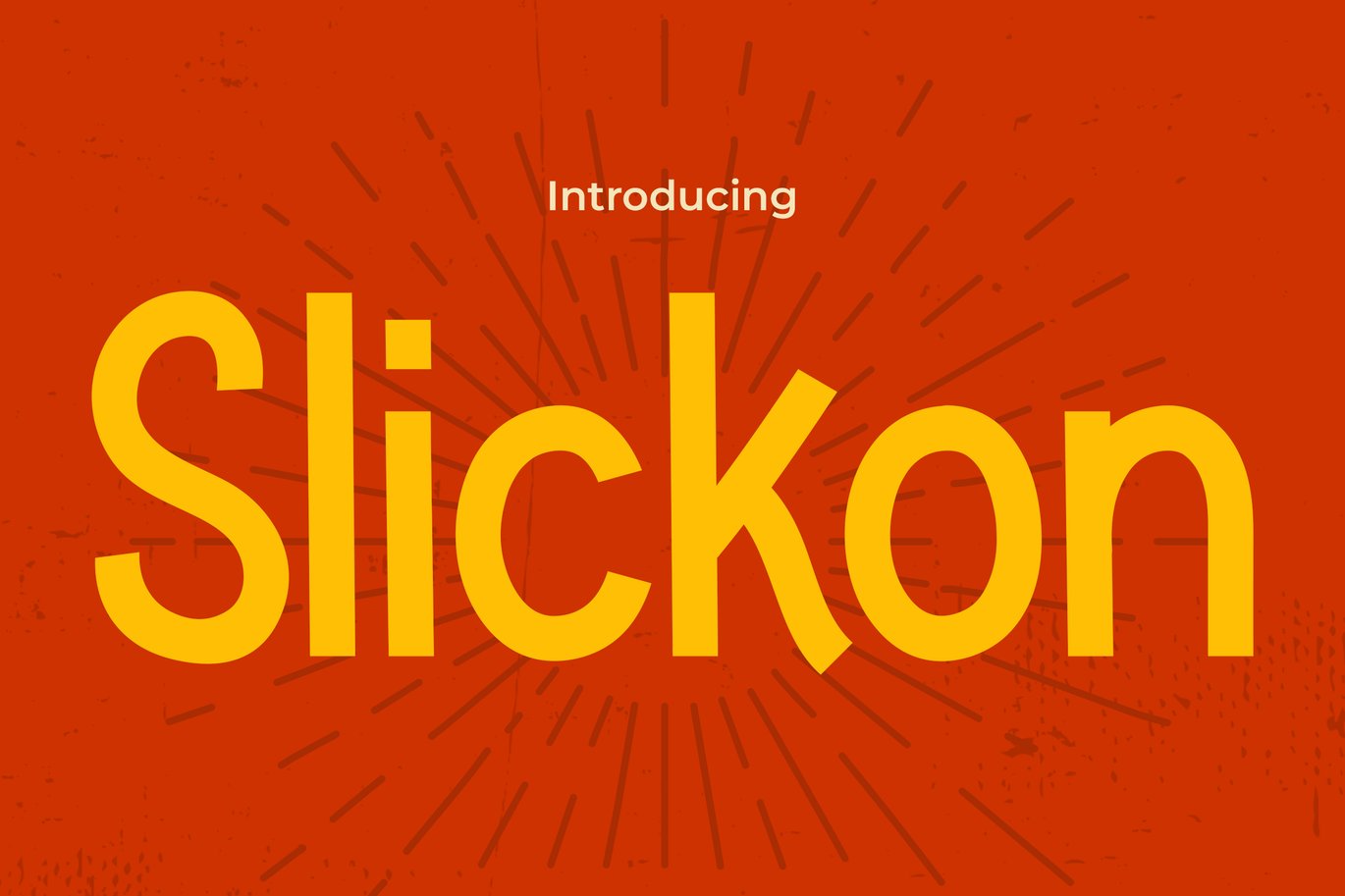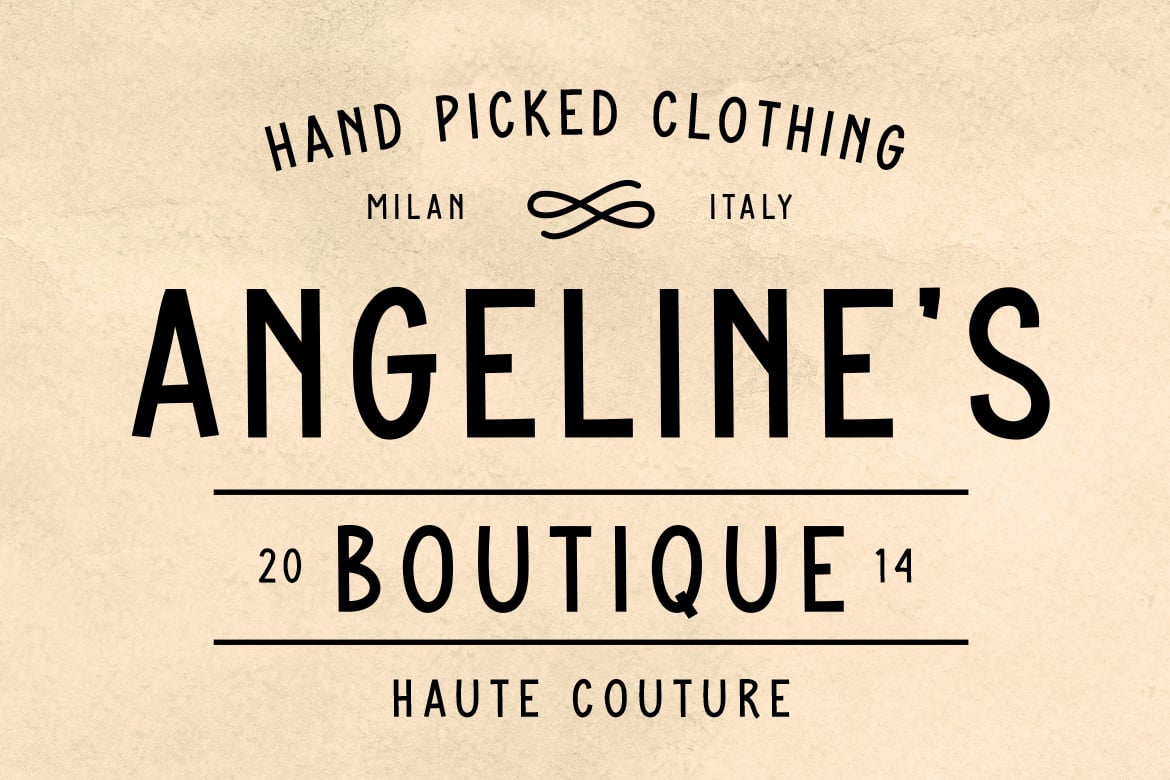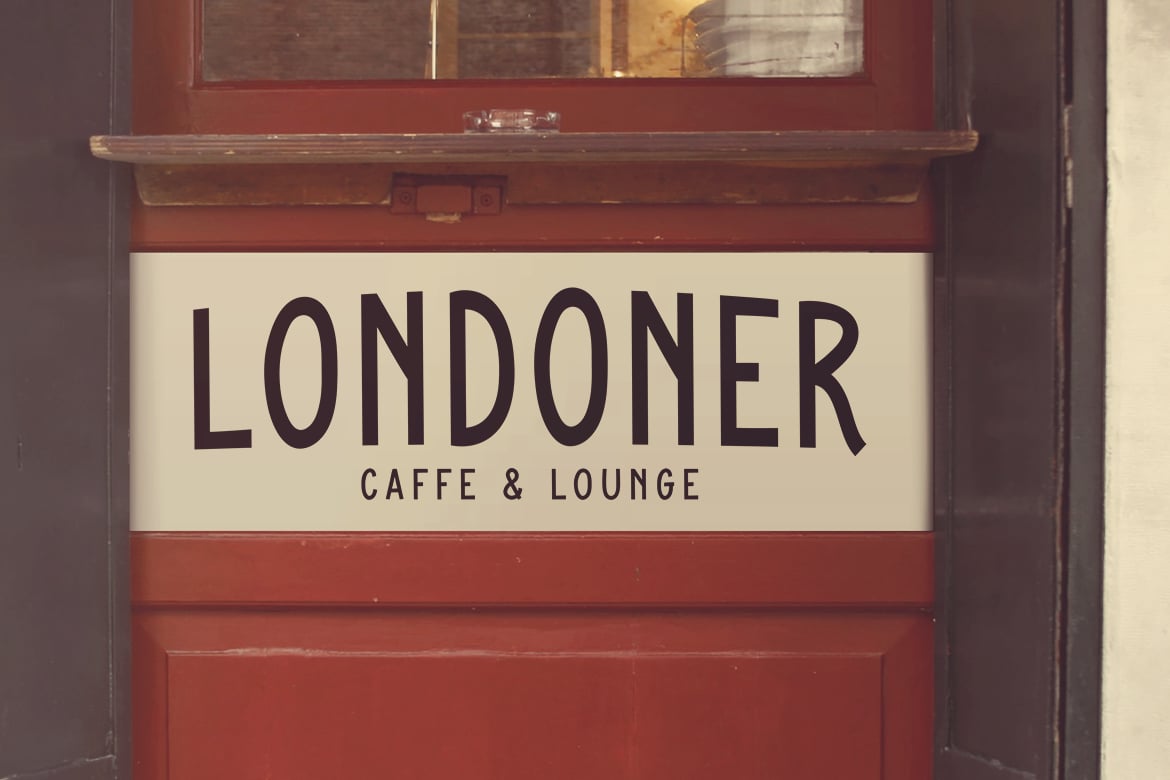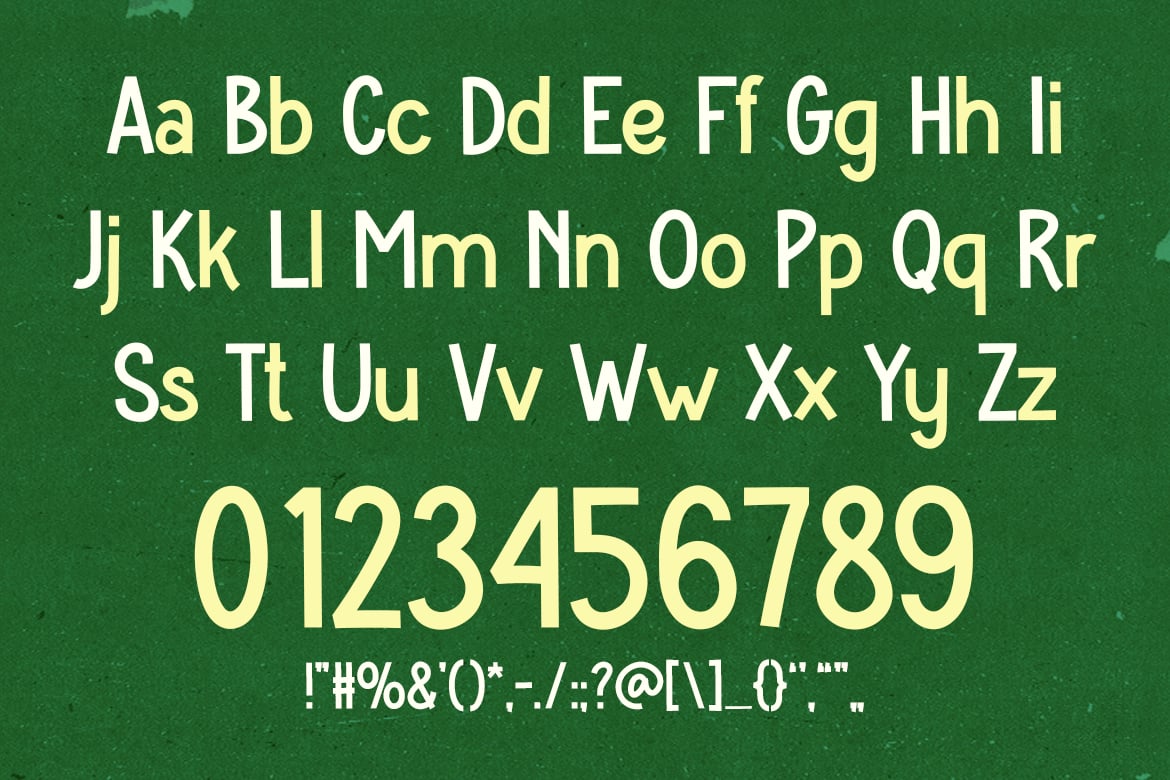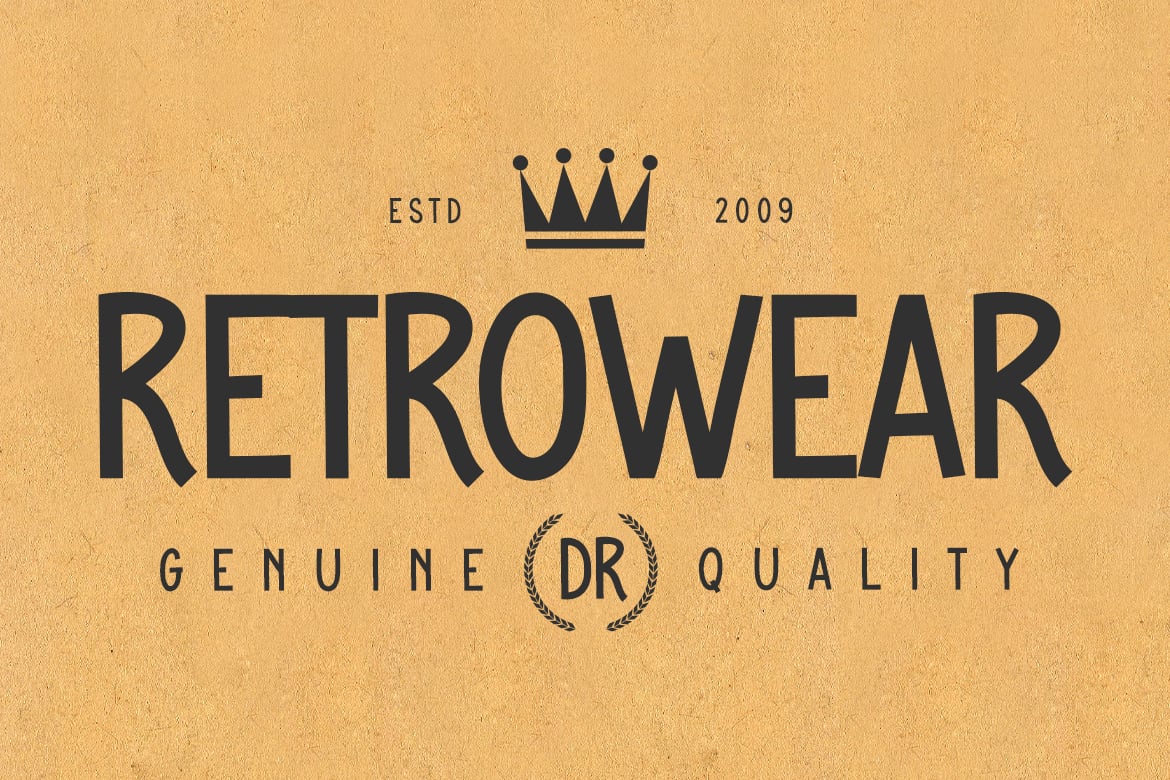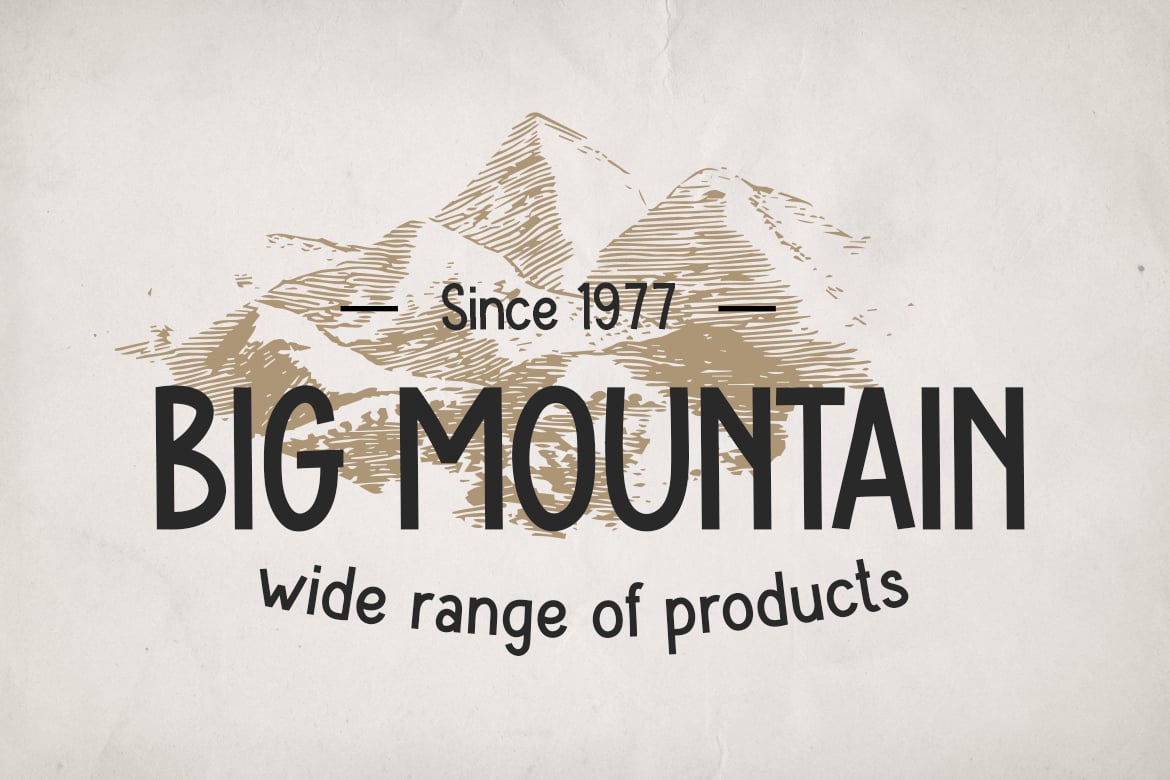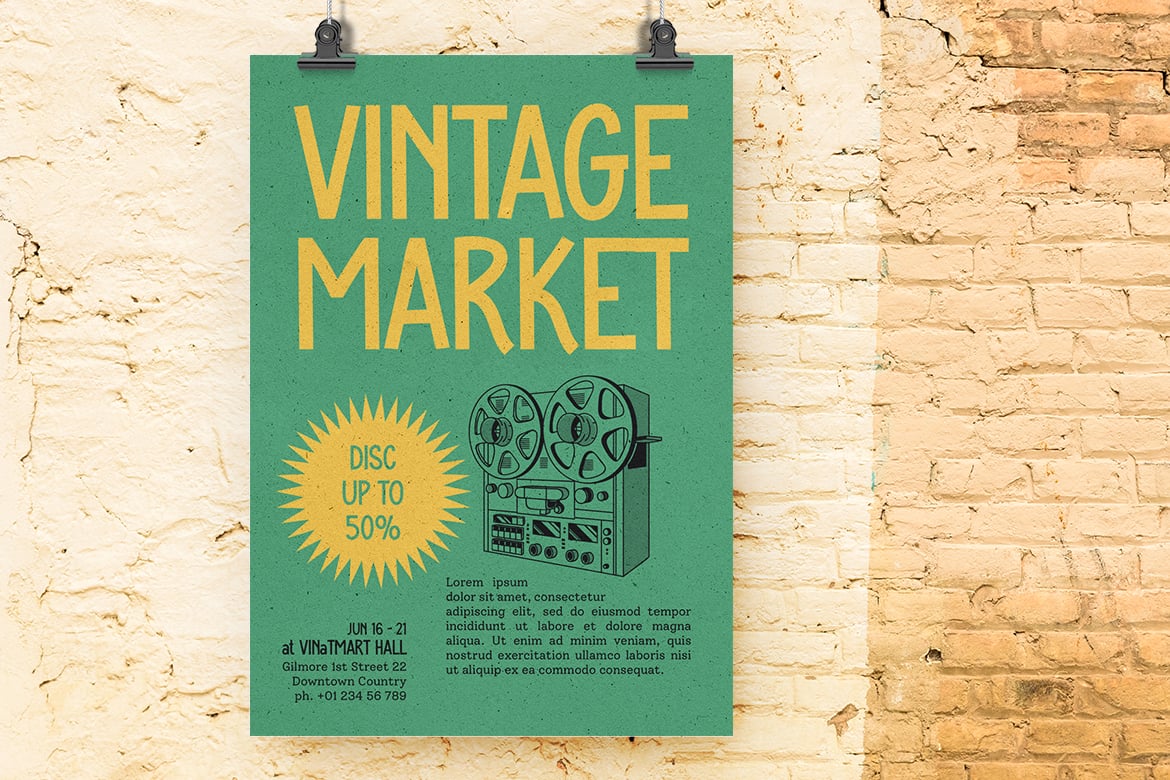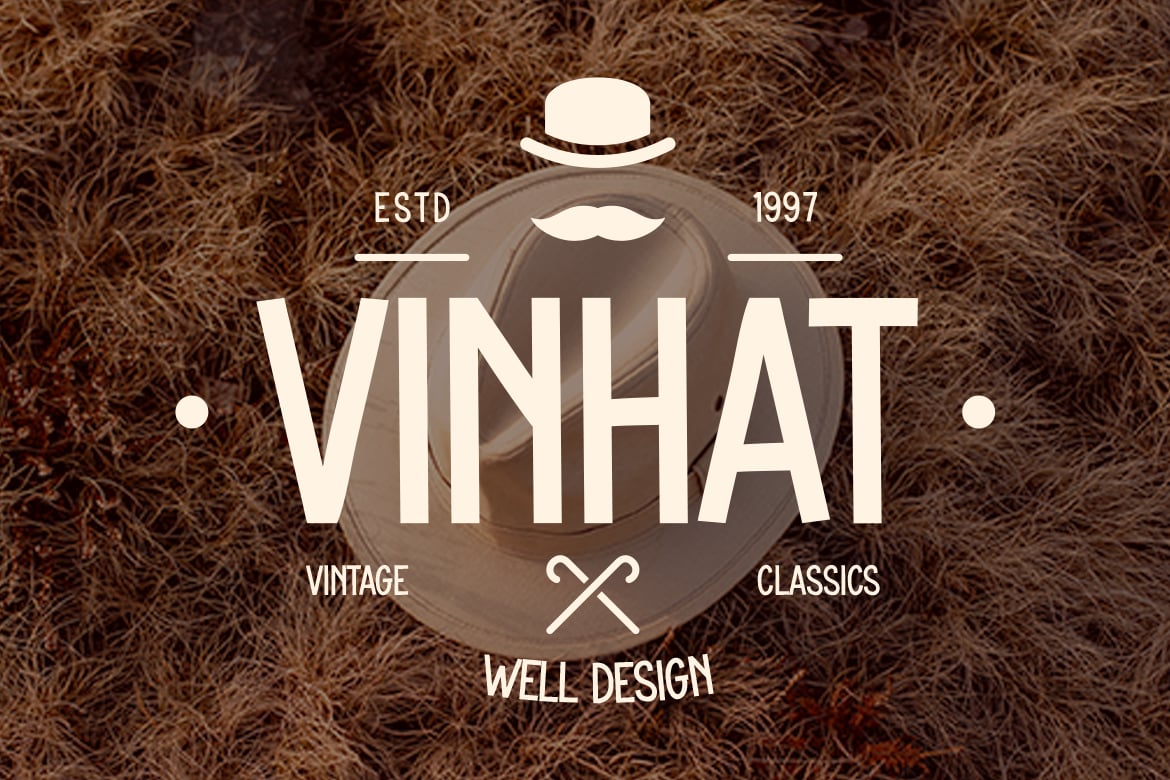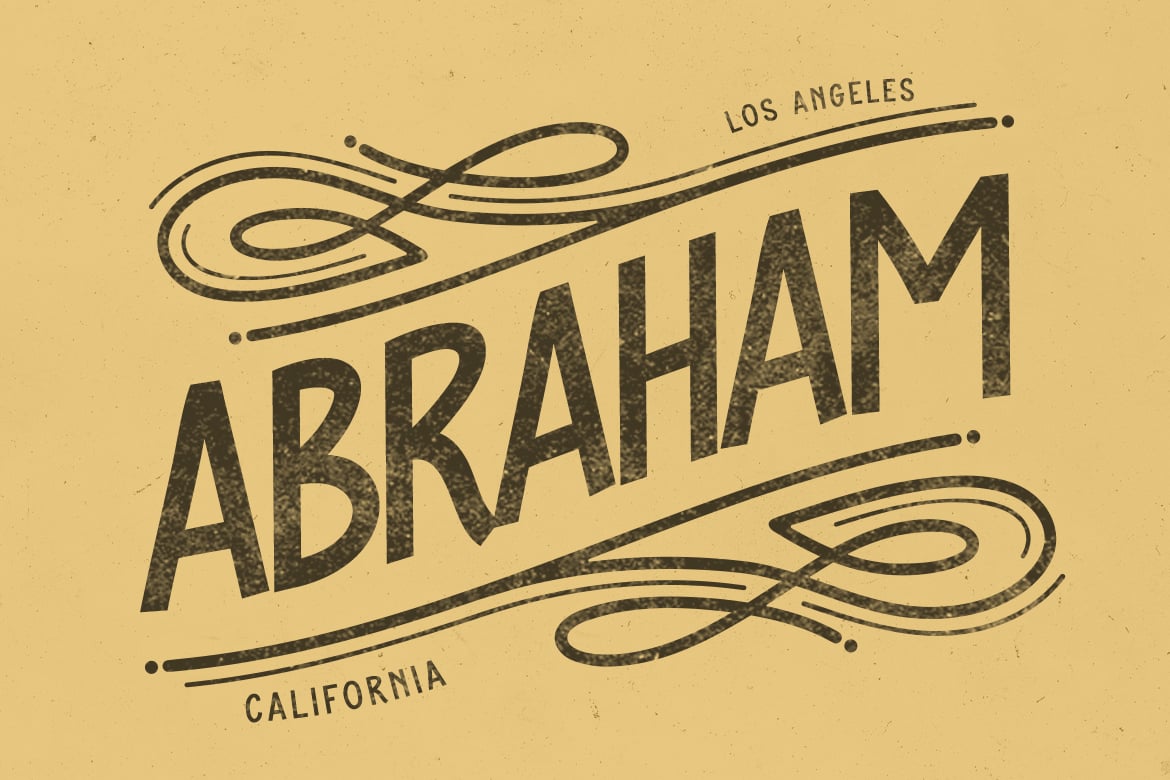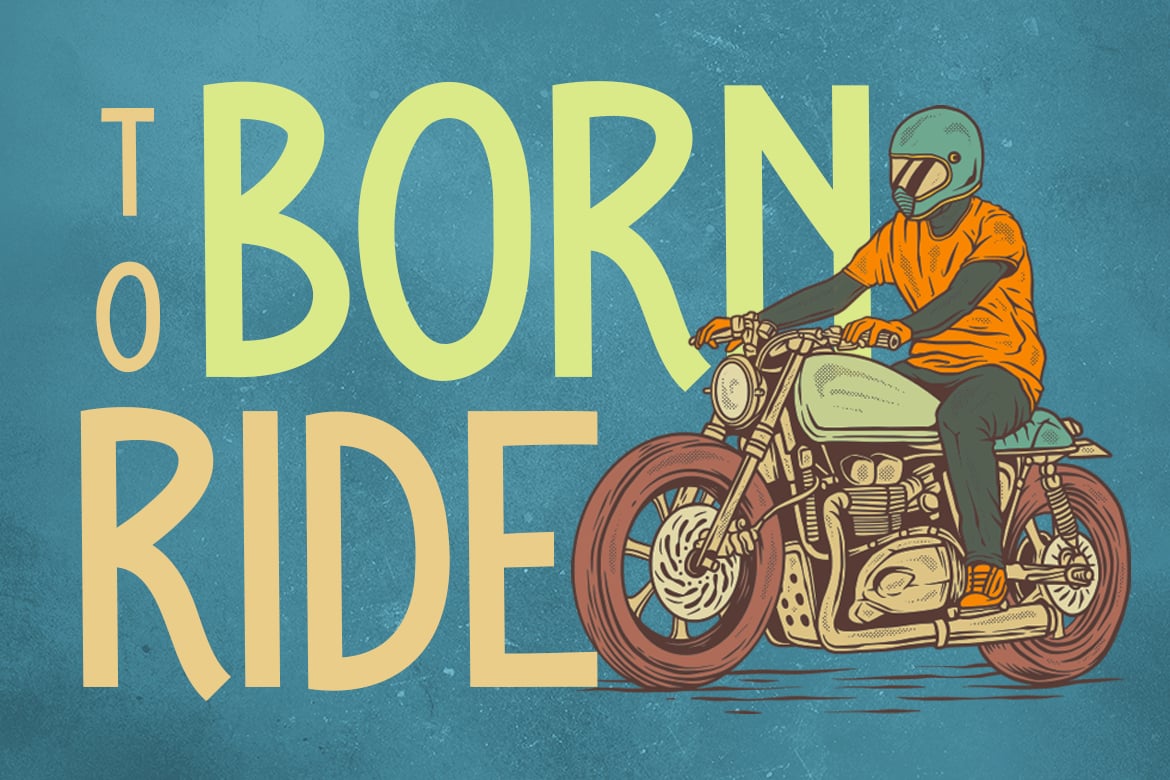
Vintage Font – Slickon
Slickon is a vintage font that perfectly captures the essence of the 70s retro style, blending it with modern sans serif typography for a unique and timeless look. Ideal for creating logos that demand attention, this font adds a classic badge-like character that resonates with nostalgia and contemporary appeal. Slickon enhances quotes with a stylish retro flair, making invitations stand out with its distinct typography. Whether used in posters, greetings, or packaging, this font brings a unique vibe that enhances branding and makes covers pop. It’s also perfect for events, headlines, and advertising campaigns that aim to capture a vintage yet modern aesthetic.